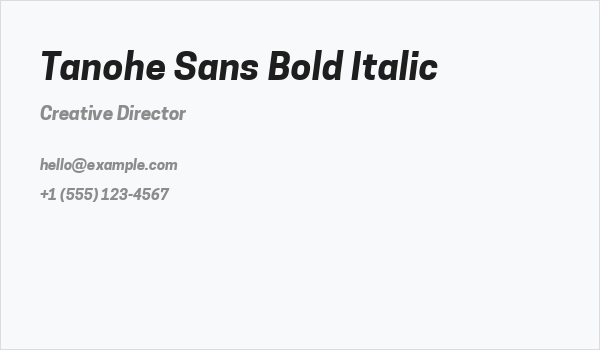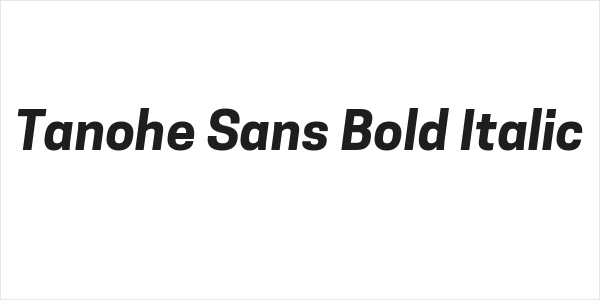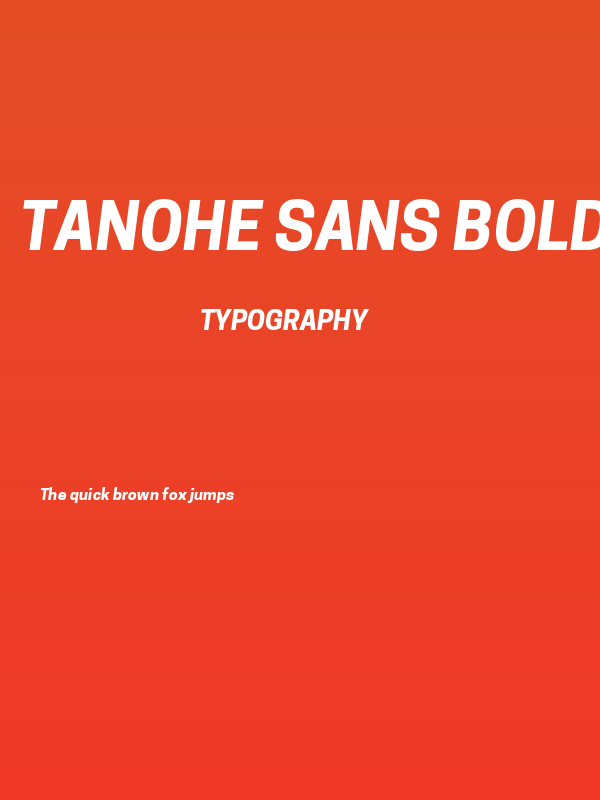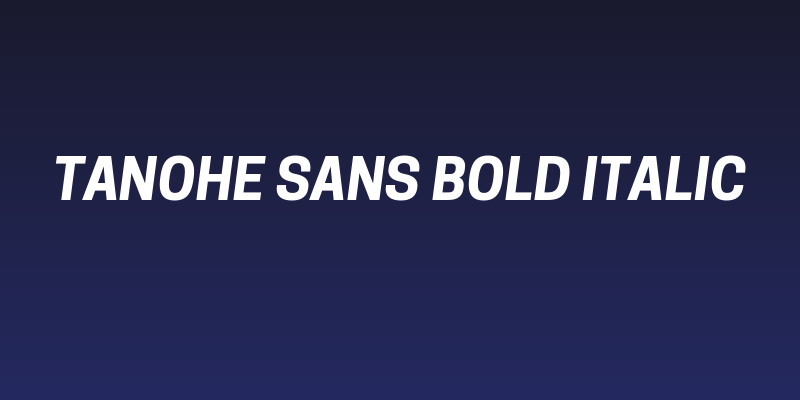
Tanohe Sans Bold Italic Font
Tanohe Sans Bold Italic Description
This font exhibits a bold and italicized style, characterized by its strong and assertive presence. The letters are sans-serif, providing a clean and modern look. The strokes are consistent in thickness, offering a uniform appearance across all characters. The italic slant adds a dynamic and forward-moving feel, making it suitable for attention-grabbing headlines. The numerals and special characters maintain the same boldness and slant, ensuring consistency throughout. The overall design is sleek and contemporary, ideal for projects that require a bold statement.
| Use Case | Headlines, Logos, Advertising |
| Proposed Projects | Ideal for branding, advertising, headlines, and any project that requires a strong visual impact. |